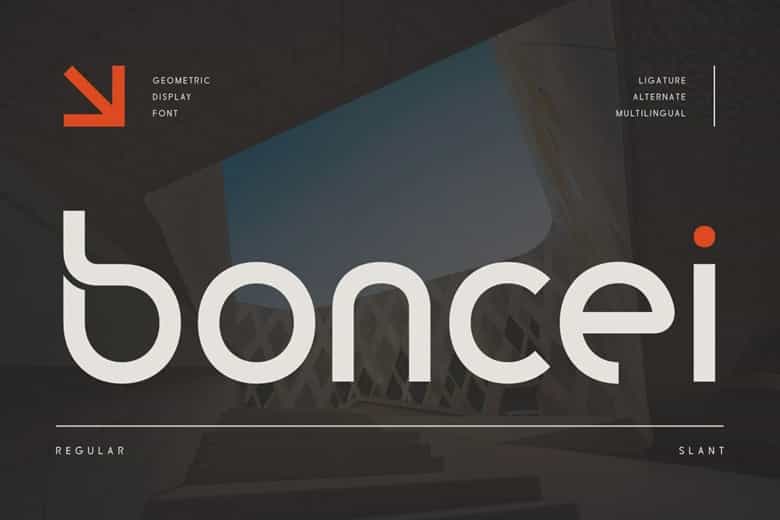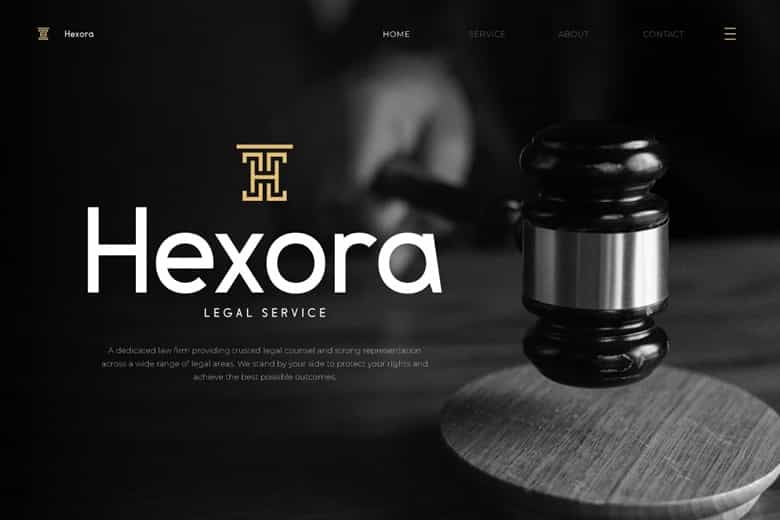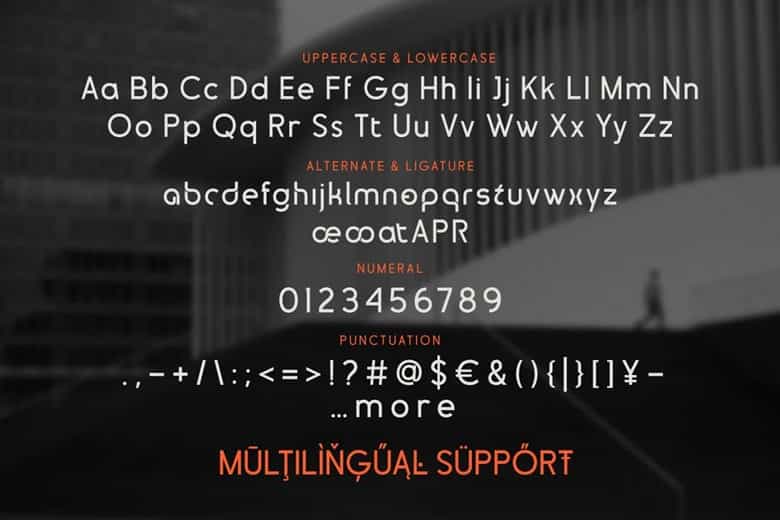
Boncei was created to fit the needs of companies for their corporate branding, designs and logos. With sharp lines and a balanced design, Boncei looks both professional and current. Because the letterforms are clean and flexible, this font is ideal for technology companies, startups, financial firms or any brand wishing to stress innovation, trust and newness.